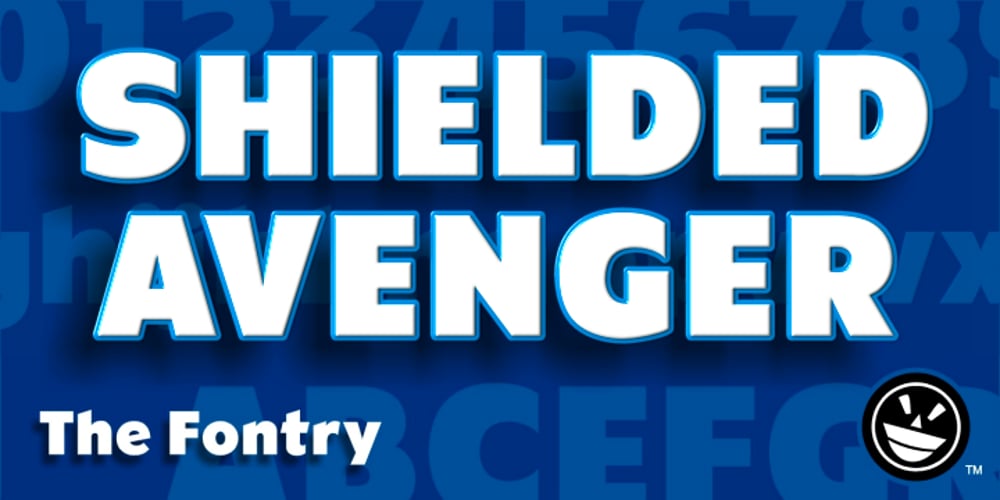
CFB1 Shielded Avenger
CFB1 Shielded Avenger font
CFB1 Shielded Avenger Font Family was designed by Michael Gene Adkins and published by The Fontry. CFB1 Shielded Avenger contains 29 styles and family package options. Do you love your country as much as you love fonts? Are you a Comic Fanboy? A CFB with a soft spot in your heart for those spangled superheroes willing to fight for the American way of life? Do you joyously celebrate the 4th of July? Do you admire the Pledge of Allegiance, Old Glory, Lady Liberty, the Star-Spangled Banner? Do you hum the National Anthem on your drive home? Do you put country first? The American Patriot collection was inspired by the patriotic lettering styles that arose out of the golden and silver age of comics, when real heroes donned the stars and stripes and battled the forces of tyranny with fierceness and unashamed pride. The CFB1 American Patriot FontPack is 3 fonts (American Patriot, Captain Narrow and Shielded Avenger), each in 6 patriotic variations. Buy them separately or buy all three at a package discount. Get all three fonts and start showing off your colors, utilizing the styles menu to create a truly American layering effect. Be a patriot true! Stack up the layers for the red, white and blue!